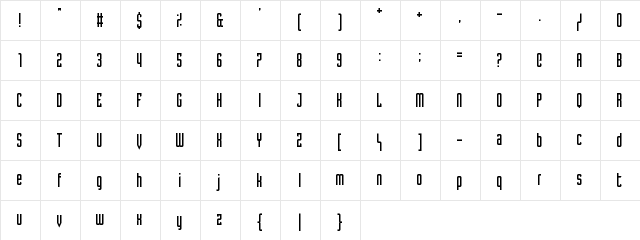
Tomorrow Wind Regular
| Designer | Andrew McCluskey |
Design Context for Tomorrow Wind Typeface
Tomorrow Wind is a composed and adaptable typeface that performs quietly and consistently across a wide range of design contexts.